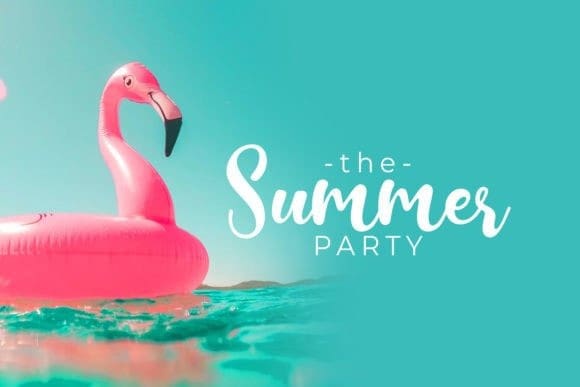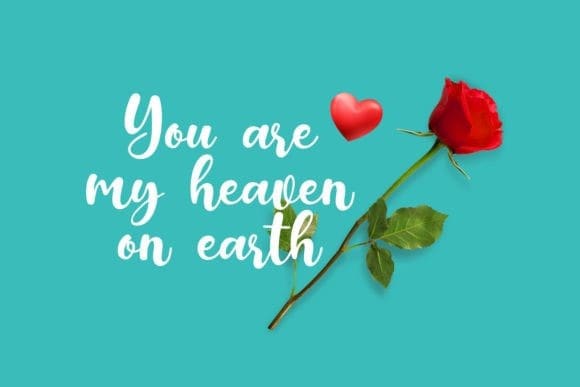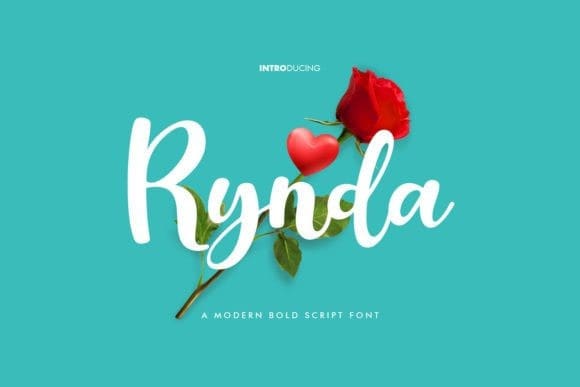
Rynda Script Font
Rynda Script Font is a modern and cute script font perfect for posters, logos, magazines, book covers, banners, and many more! Get this amazing font, and use it to create lovely designs. It can easily be matched to an incredibly large set of projects, so add it to your creative ideas and notice how it makes them stand out!